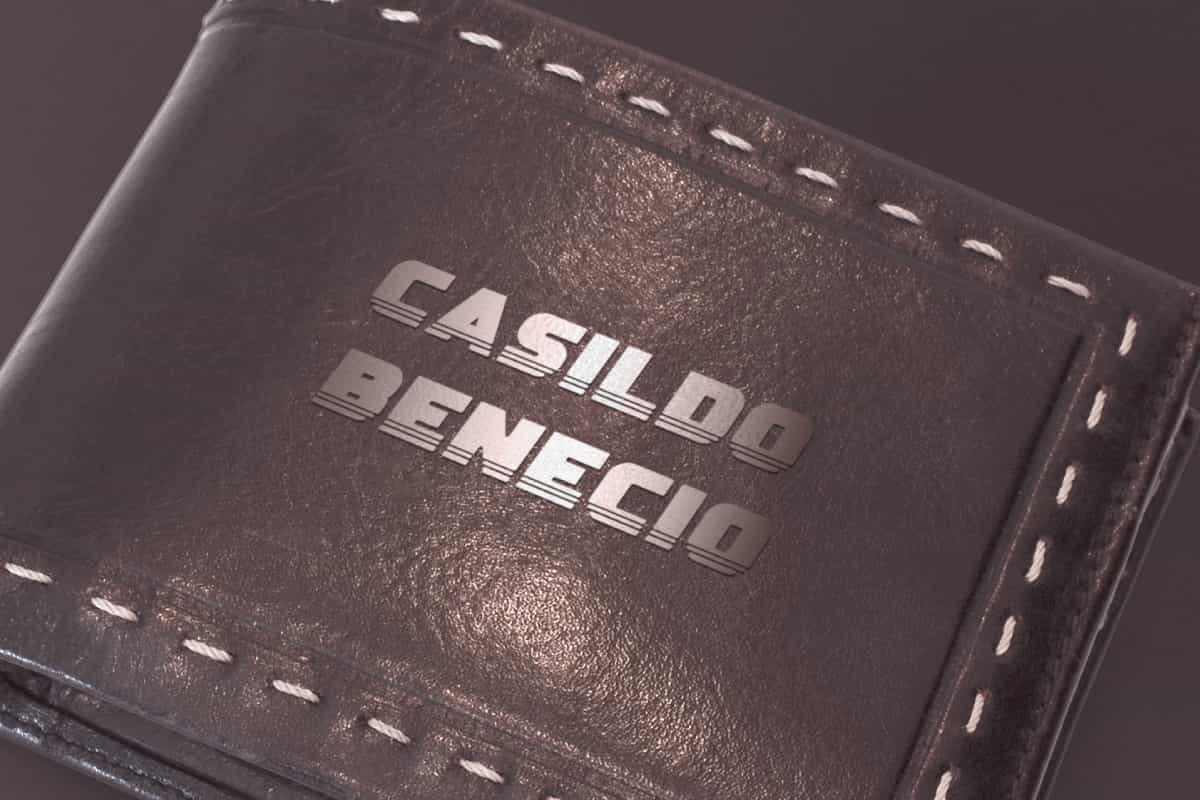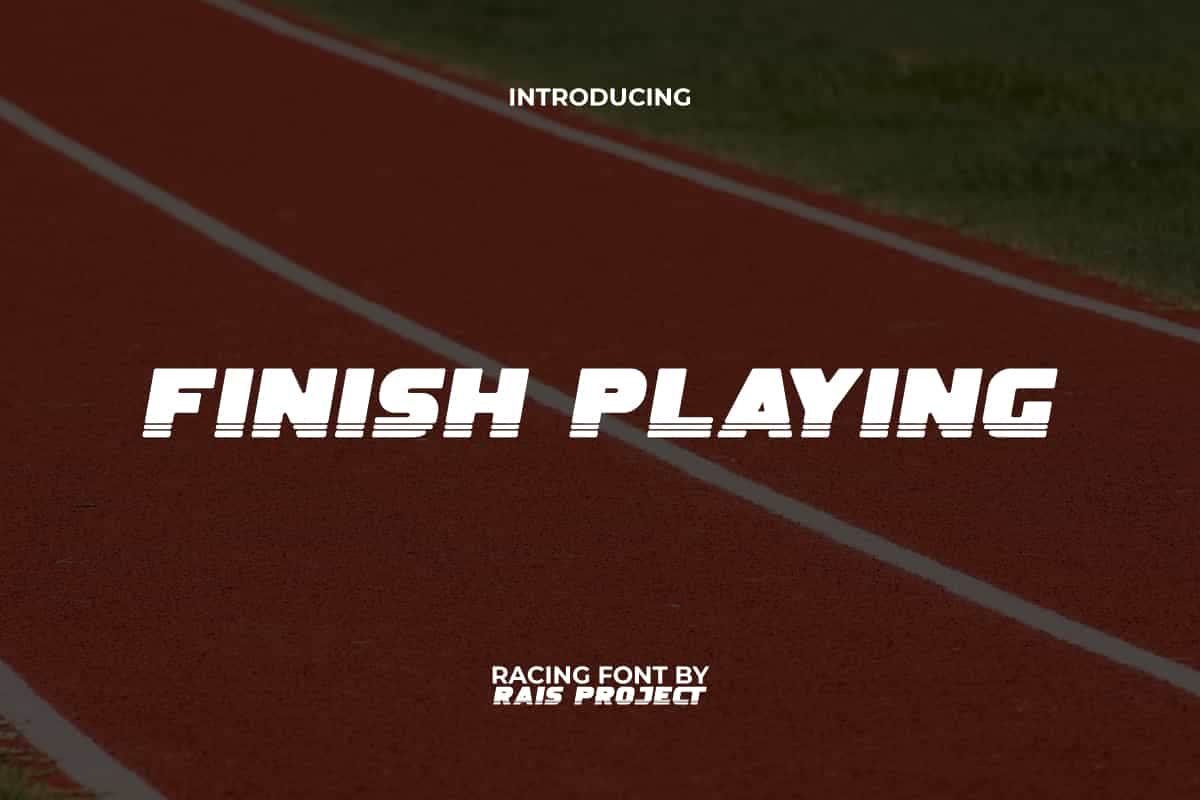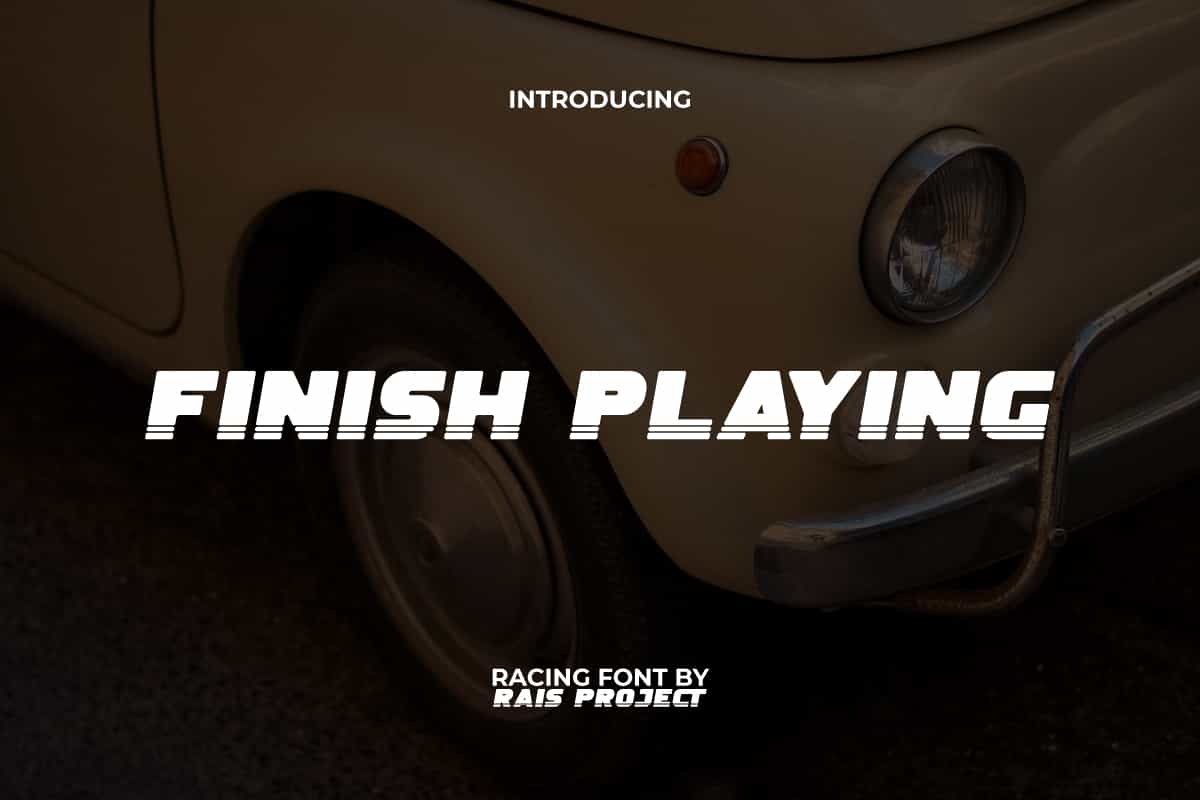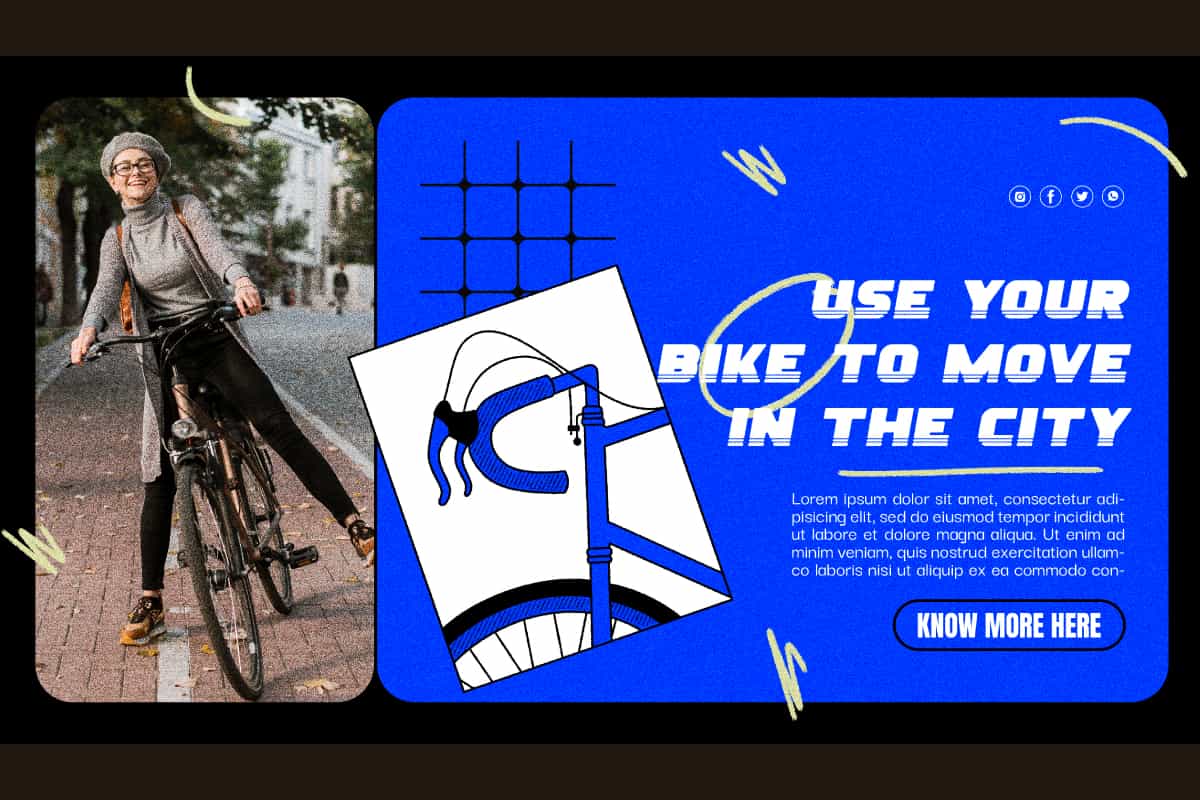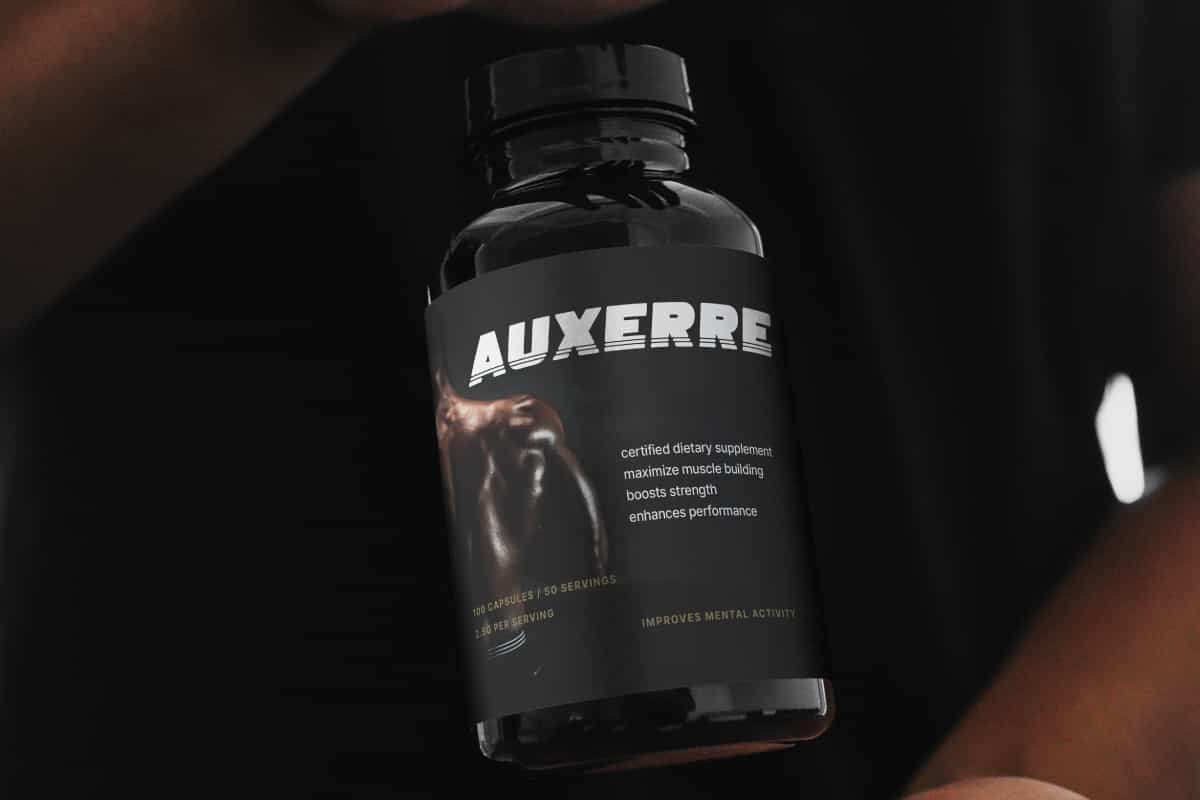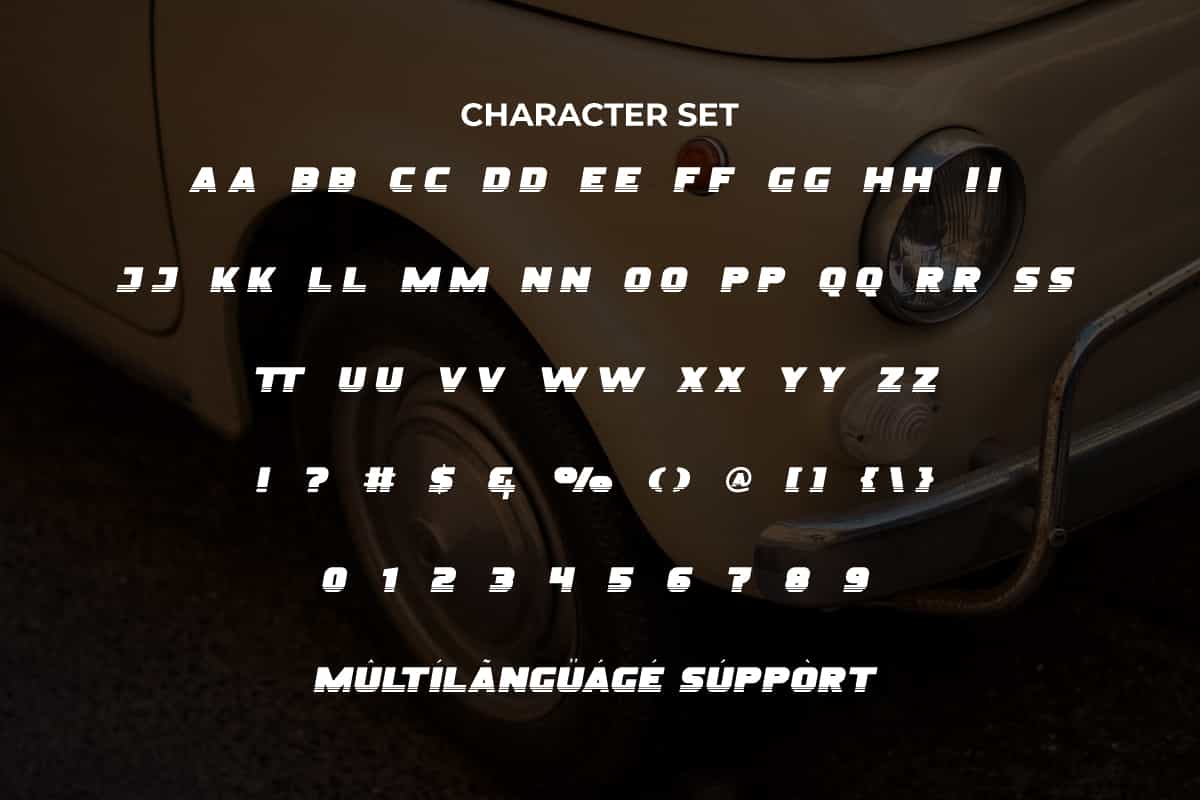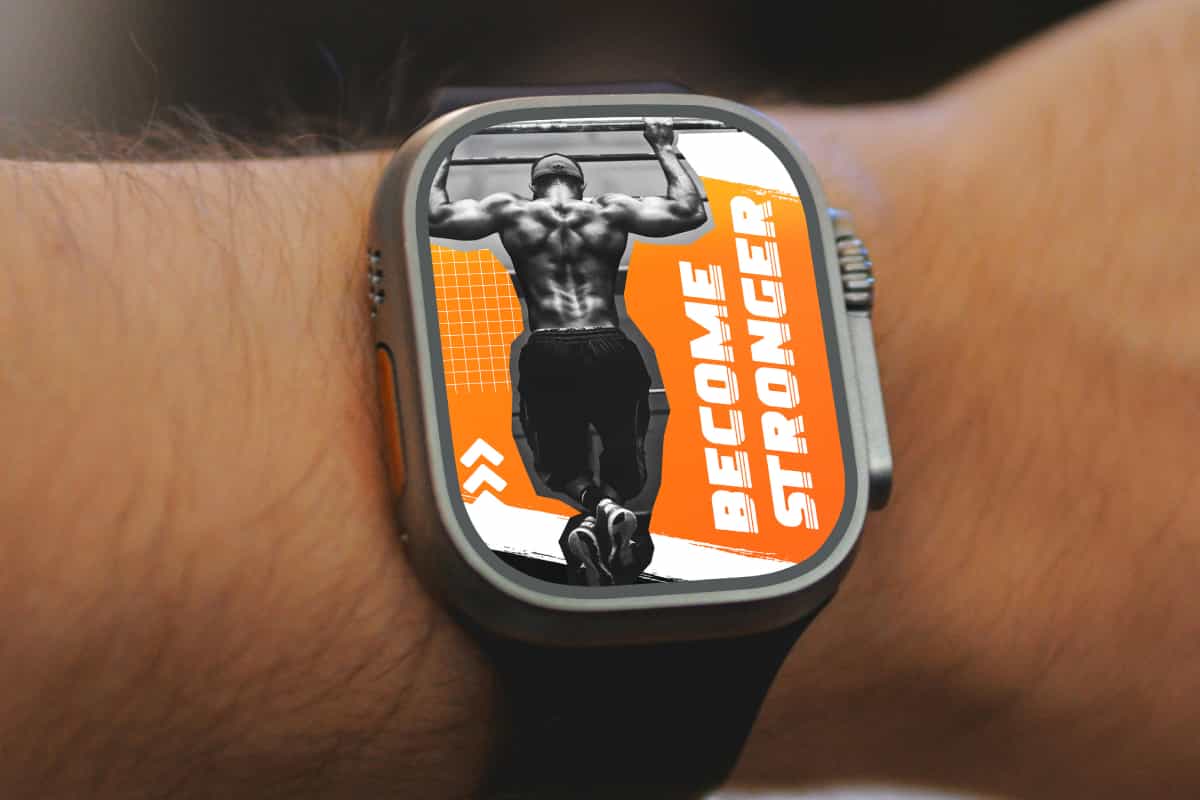
Finish Playing Font
Finish Playing Font is a cool finish line decorated gaming modern racing font. Use this font right now to make your design looks different!
Finish Playing Font is a cool finish line decorated gaming modern racing font. Inspired from retro racing lines. This font has additional detail in the form of a line at the bottom of the letters to make it stand out. It will be good for any designs, such as invitation, custom design, poster, product packaging, quotes, poster, signage, brand image, advertisement, label, marketing material, stationery, website page, and more!
Finish Playing Font includes a full set of ALL CAPS for Uppercase and Lowercase Letters, Numerals, and large range of Punctuation. This awesome font will be suitable for various industries, such as fashion, automotive, sports, game, barber shop, cafe, event or festival, photography, printing, publishing, etc.